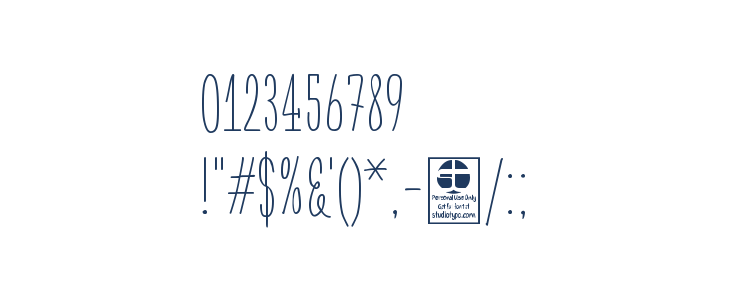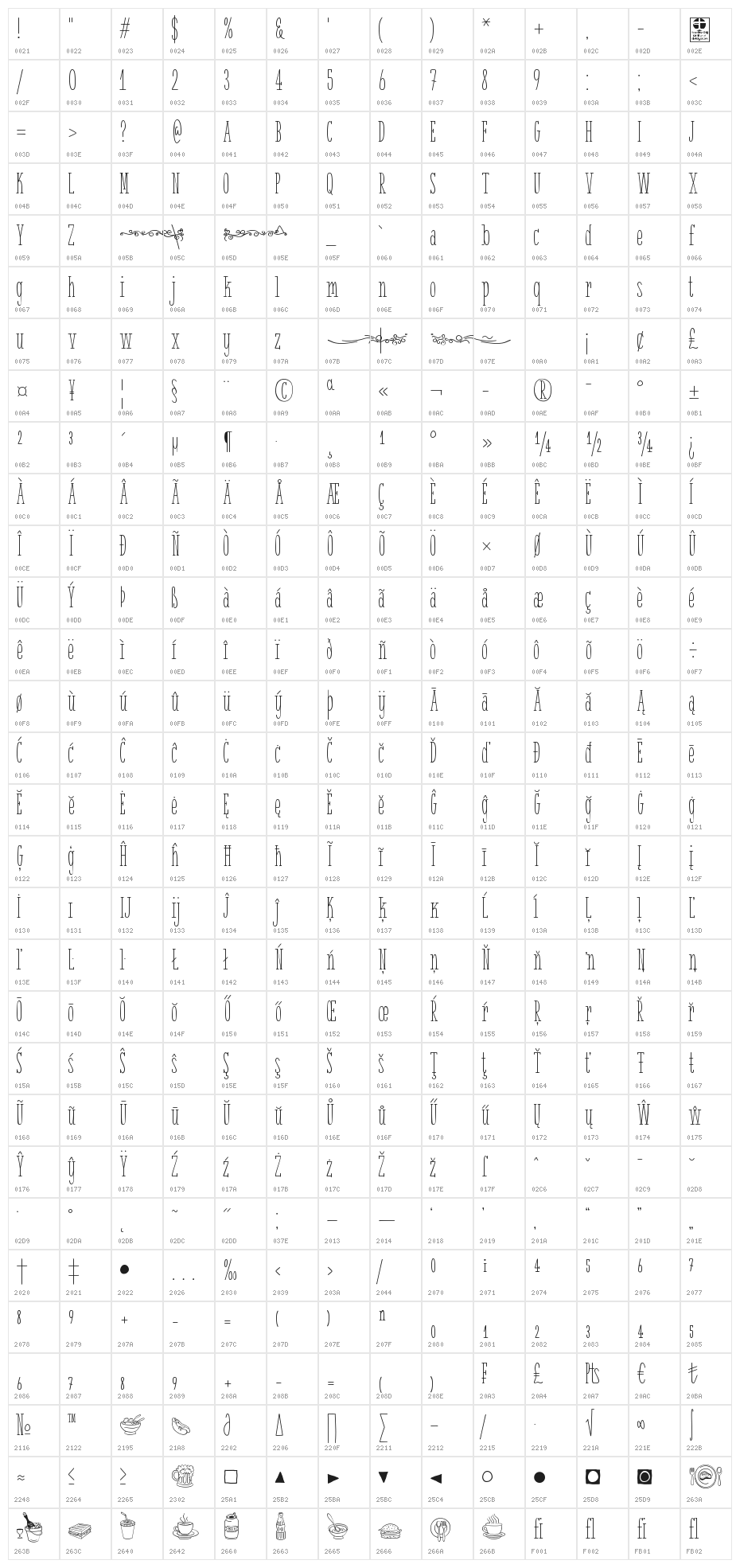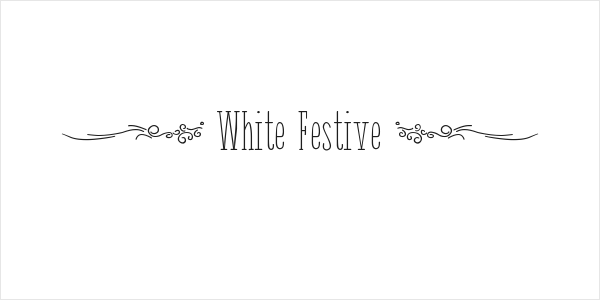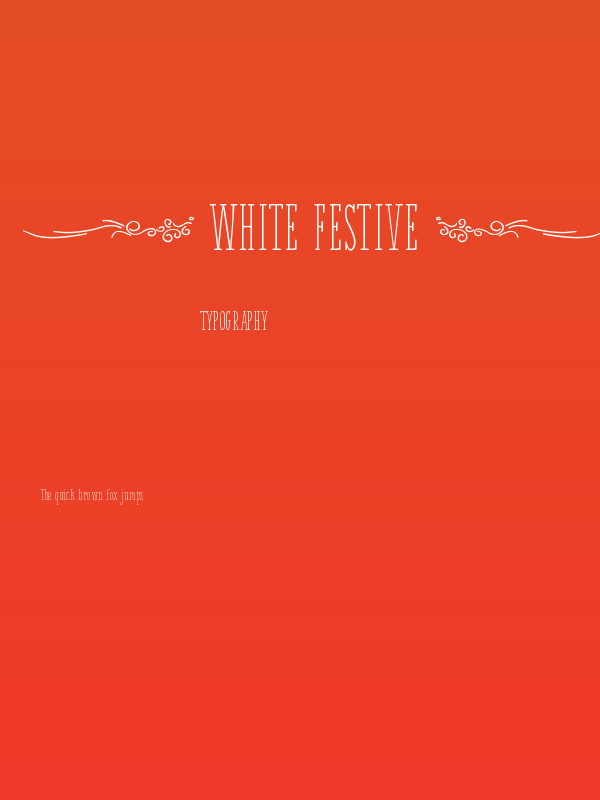
{ White Festive } Font
{ White Festive } Description
This font features tall, slender characters with a distinct elegance, characterized by its elongated vertical lines and minimalistic serifs. The uppercase letters are particularly striking, with a refined and sophisticated appearance. The lowercase letters maintain the same slender quality, offering a cohesive look across both cases. Numbers and special characters are designed with the same attention to detail, ensuring consistency throughout. The overall design is clean and modern, making it suitable for a variety of applications where a touch of elegance is desired.
| Proposed Projects | Ideal for wedding invitations, luxury branding, editorial design, and elegant packaging. |